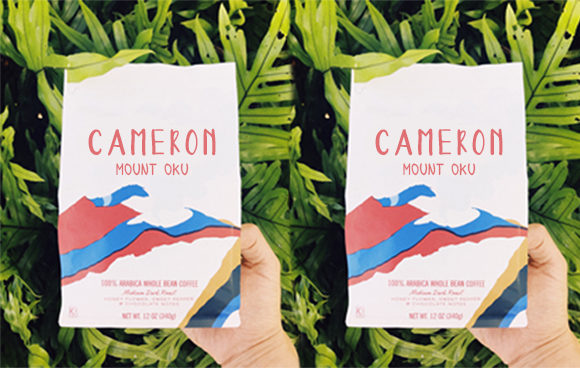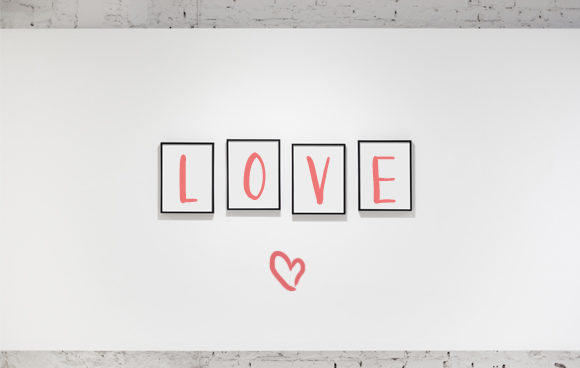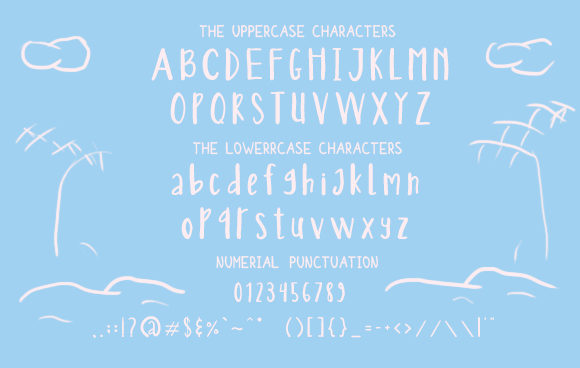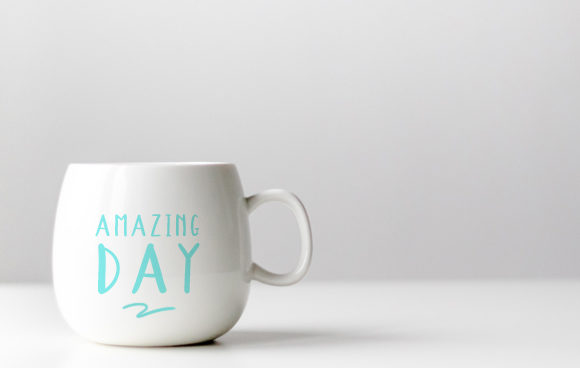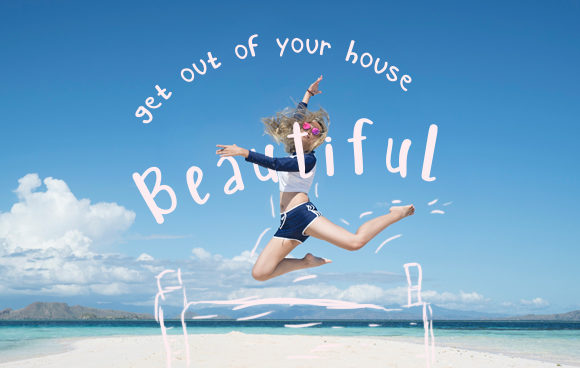
Colosal Font
About Colosal Font
Colosal is a huge font bundle packed with hand-lettered script fonts and an abundance of graphics for decorative designs. Get inspired by this versatile font, and turn any design into a stand out!